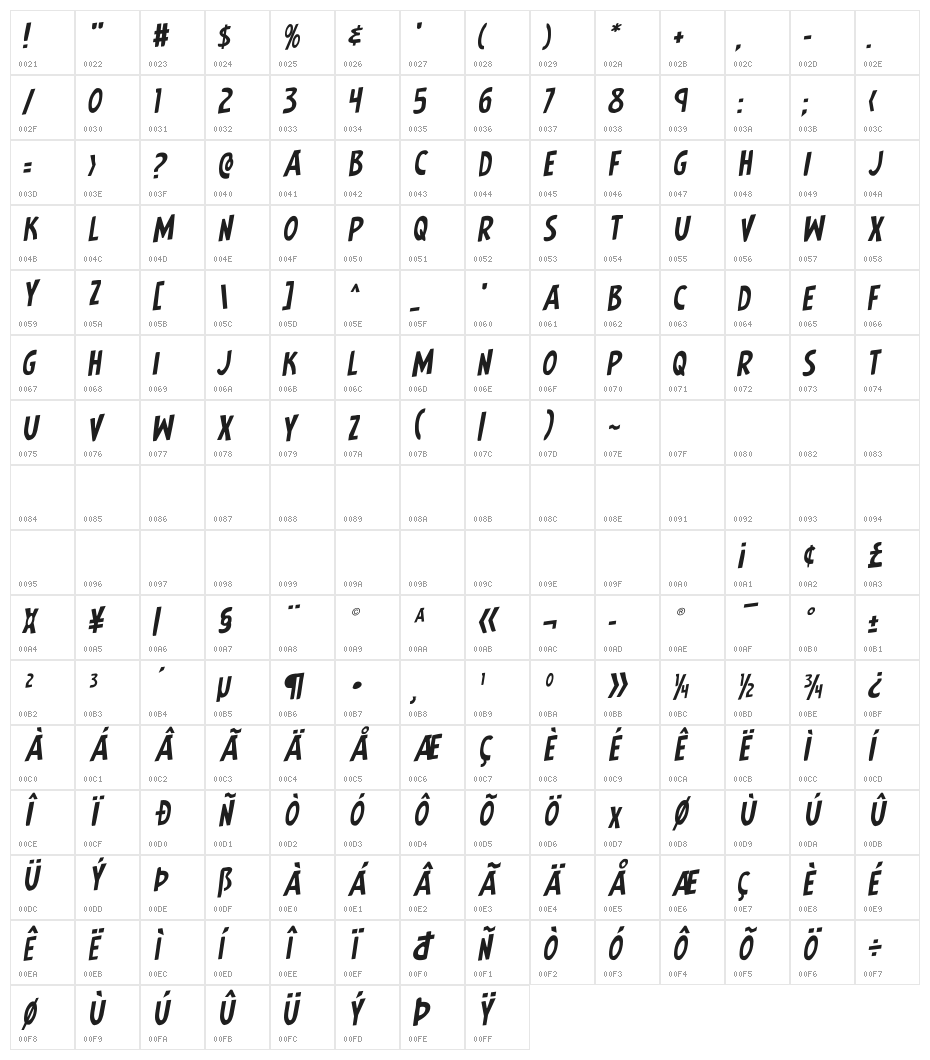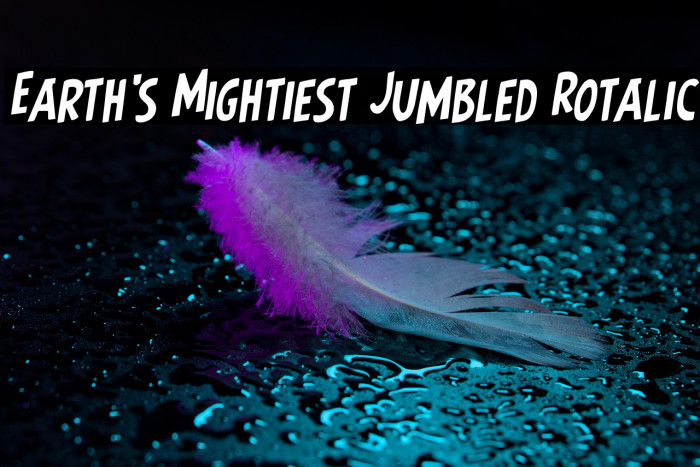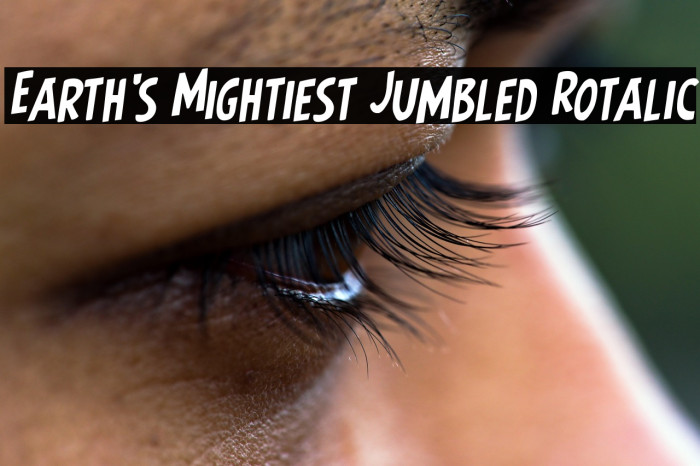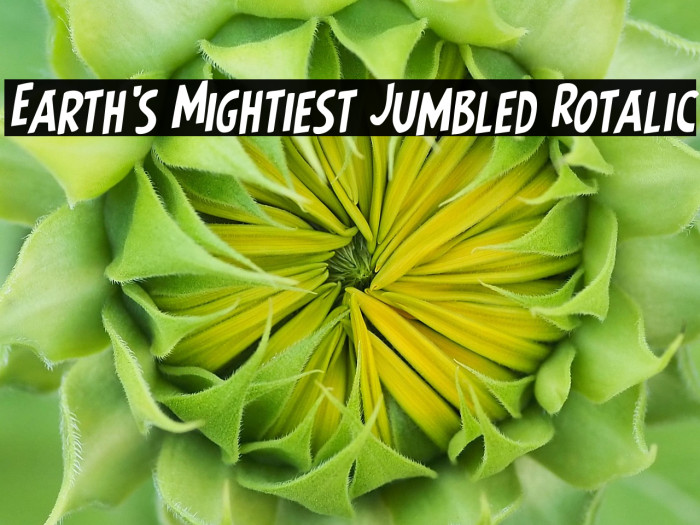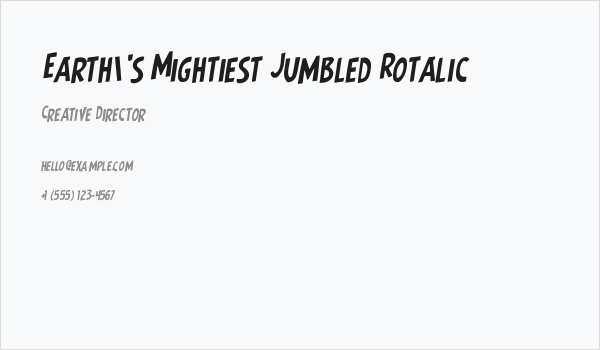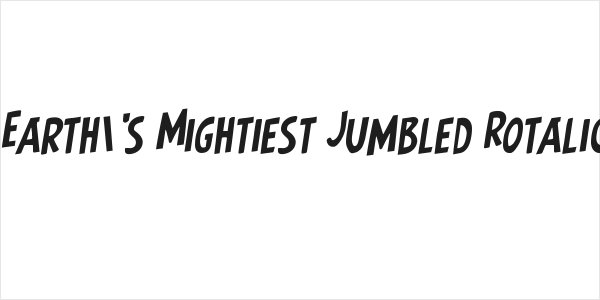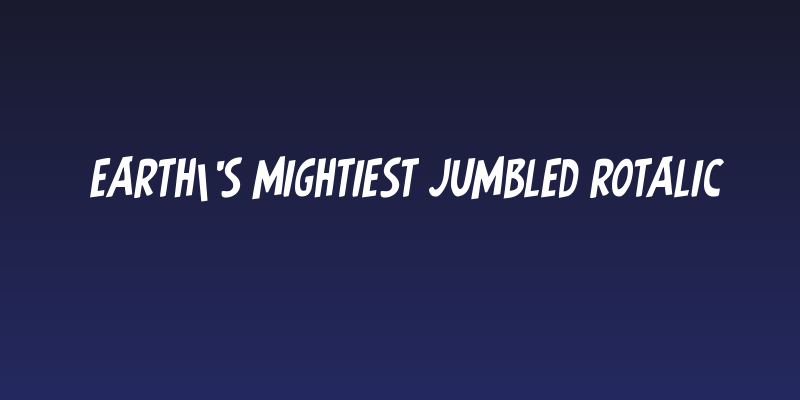
Earth's Mightiest Jumbled Rotalic Font
Earth's Mightiest Jumbled Rotalic Description
This dynamic and bold font features a slanted, italicized style that gives it a sense of motion and energy. The characters are slightly condensed, with a strong presence and a modern flair. The strokes are consistent in thickness, providing a uniform appearance across all characters. The font includes both uppercase and lowercase letters, numerals, and a variety of special characters, making it versatile for different design needs. Its playful yet assertive style makes it suitable for attention-grabbing headlines and impactful logos.